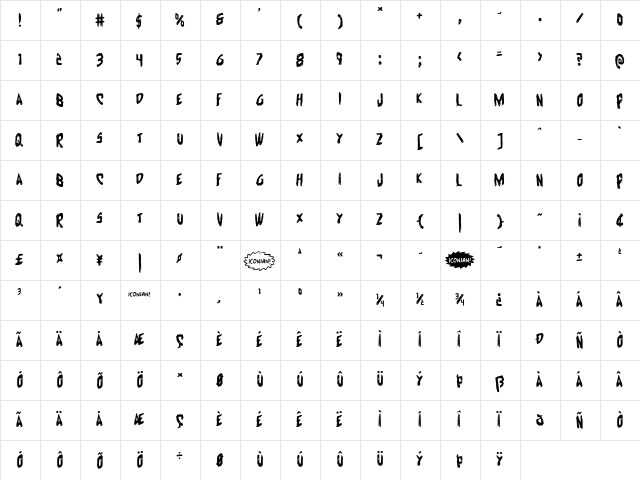
Cyrus the Virus Regular
Design Context for Cyrus the Virus Typeface
Cyrus the Virus is a composed and adaptable typeface that performs quietly and consistently across a wide range of design contexts.